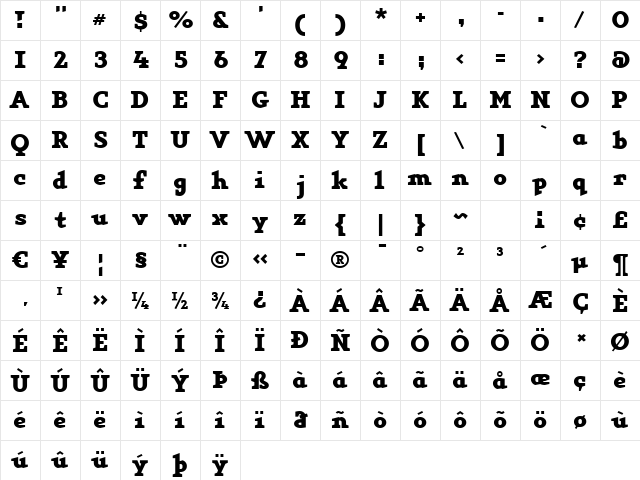
KeyBoldLiningNumbers Regular
Design Context for KeyBoldLiningNumbers Typeface
KeyBoldLiningNumbers offers clean, dependable letterforms without strong stylistic allegiance, making it a practical choice for designers who need flexibility. Its bold stroke weight gives it real presence on the page.